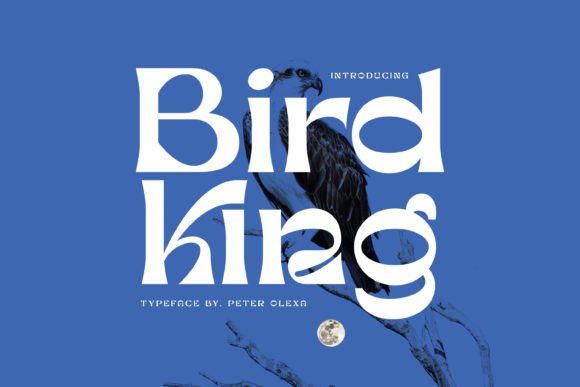
Prepare to embark on a groovy typographic journey with Bird King Font, the epitome of 60s and 70s aesthetics. This spirited serif font, crafted by the talented hands at JumboDesign, is a kaleidoscope of playful curves and bold strokes, effortlessly blending serif and sans-serif elements into a captivating dance of design.
Unleash your creativity and captivate your audience with Bird King Font, the perfect choice for crafting eye-catching titles and headlines that ooze retro charm. Whether you're designing for album covers, posters, or retro-inspired projects, this font will add an irresistible touch of nostalgia and vibrancy.
Imagine your words taking center stage, adorned with Bird King Font's groovy flair. Its bold curves and playful personality will make your message impossible to ignore, leaving a lasting impression on anyone who encounters your designs.
With Bird King Font, you'll have the power to evoke emotions and create connections. Its whimsical nature will bring a smile to viewers' faces, inviting them to engage with your content and immerse themselves in the groovy vibes of the 60s and 70s.
Don't settle for ordinary fonts that blend into the background. Embrace the uniqueness and charm of Bird King Font, and watch as your designs soar to new heights of creativity and engagement. It's time to let your imagination run wild and create something truly extraordinary.